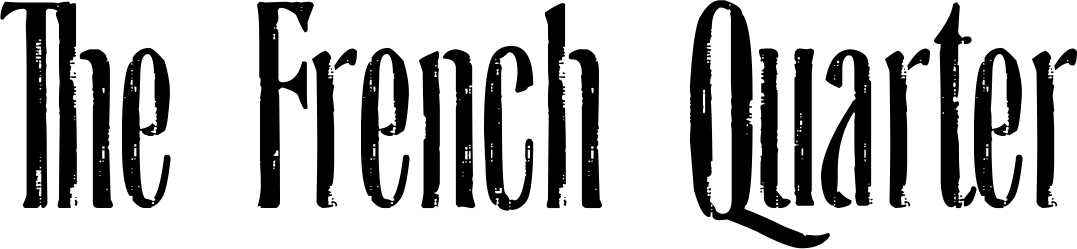
The French Quarter Font
If you need an authenticated and classic font that carries a sense of seriousness, vintage, and approachability to strongly impact your audience, a retro font such as The French Quarter would be practical for your goals.…
If you need an authenticated and classic font that carries a sense of seriousness, vintage, and approachability to strongly impact your audience, a retro font such as The French Quarter would be practical for your goals. While its characters are elongated and taller than its counterparts, it would be utilized in magazines, web pages, packages, and social media posts.
The French Quarter